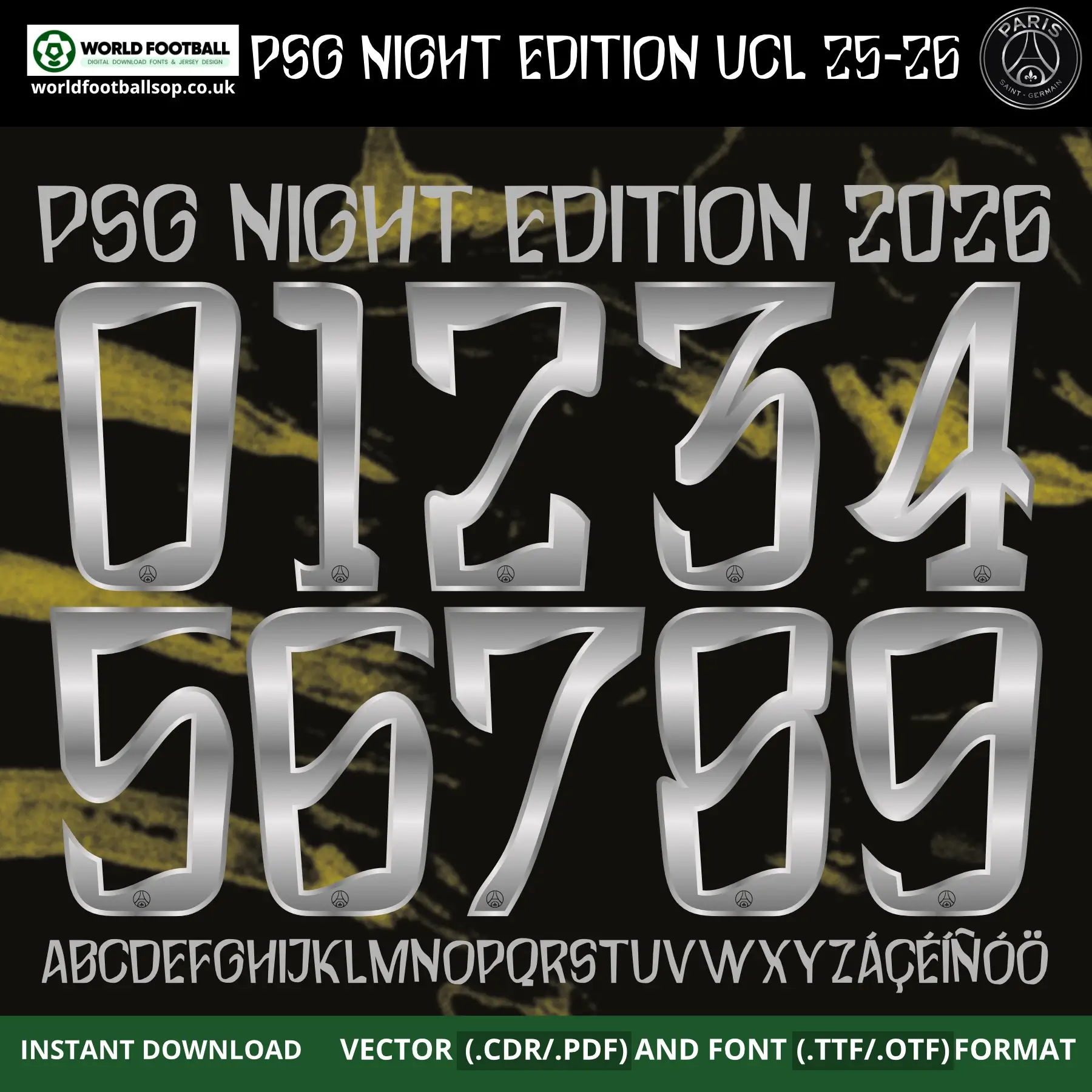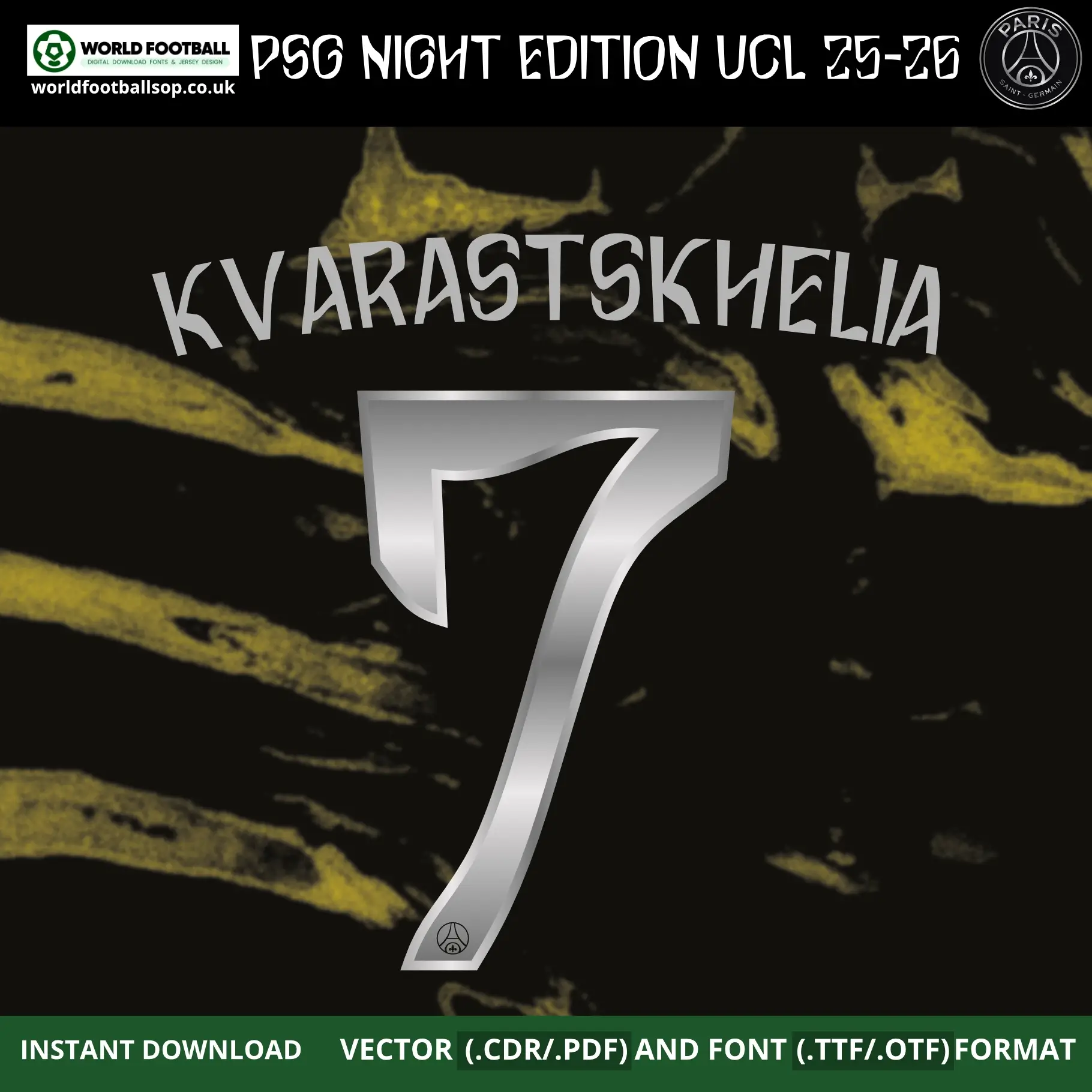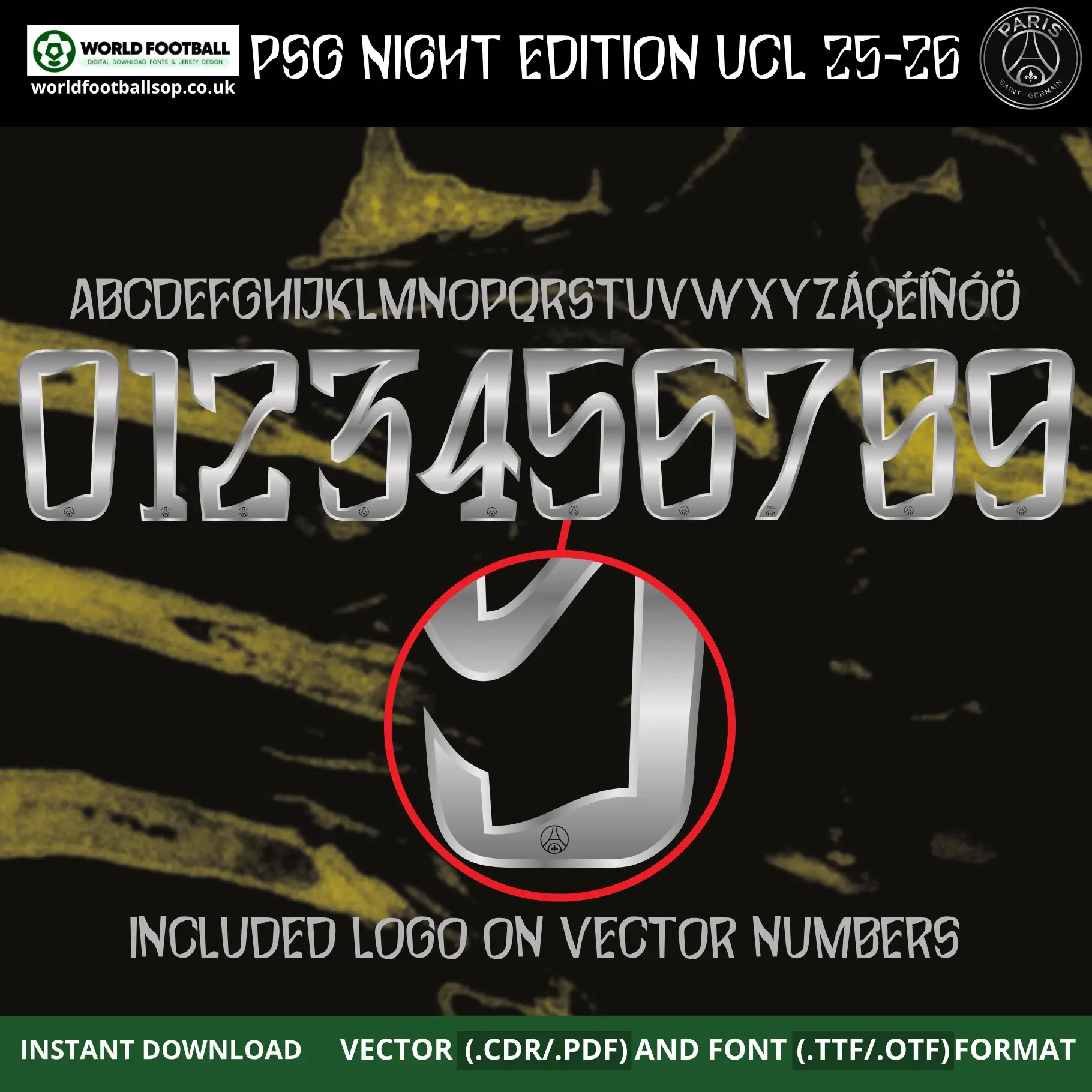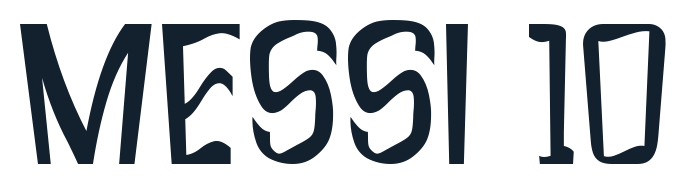
PSG Night Edition Font UCL 2025-26 – Official‑style Jersey Typography
This PSG Night Edition Font UCL 2025-26 kit recreates the bold, highly distinctive lettering used on Paris Saint-Germain’s exclusive black Night Edition shirts for the 2025-26 UEFA Champions League season. The tall, gothic-style numbers and letters feature a stunning chrome silver gradient fill with a dramatic dark inner-cutout, sharp angular details and pointed top serifs – a font style unlike any other in European football, perfectly capturing the dark luxury aesthetic of PSG’s iconic Night Edition kit against the deep black background with bold gold brushstroke paint effect. It is perfect for fans, designers and print shops who want authentic-looking names and numbers on custom PSG Night Edition jerseys and football graphics.
The font football is supplied in both desktop formats (TTF/OTF) and scalable vector files so you can work comfortably in your favourite design software. The chrome silver lettering with its metallic gradient sheen on the dramatic black and gold brushstroke Night Edition background seen in the previews mirrors PSG’s exclusive UCL kit aesthetic, making your mockups and prints look match‑ready. Every vector number includes the embedded PSG (Paris Saint-Germain) crest logo for maximum authenticity.
Full uppercase alphabet A-Z and numbers 0-9 with extended accents (Á, Ç, É, Í, Ñ, Ó, Ö)
UCL Night Edition accuracy: Inspired by the exclusive PSG Night Edition Font UCL 2025-26, not a generic typeface
High legibility: Bold chrome silver gothic forms with metallic gradient keep numbers clear on both TV and print designs while maintaining PSG’s unique dark luxury identity
Whether you are designing a full squad of custom PSG Night Edition shirts or a single fan jersey with your own name and number, this PSG Night Edition Font UCL 2025-26 gives your project a professional, on‑pitch look.